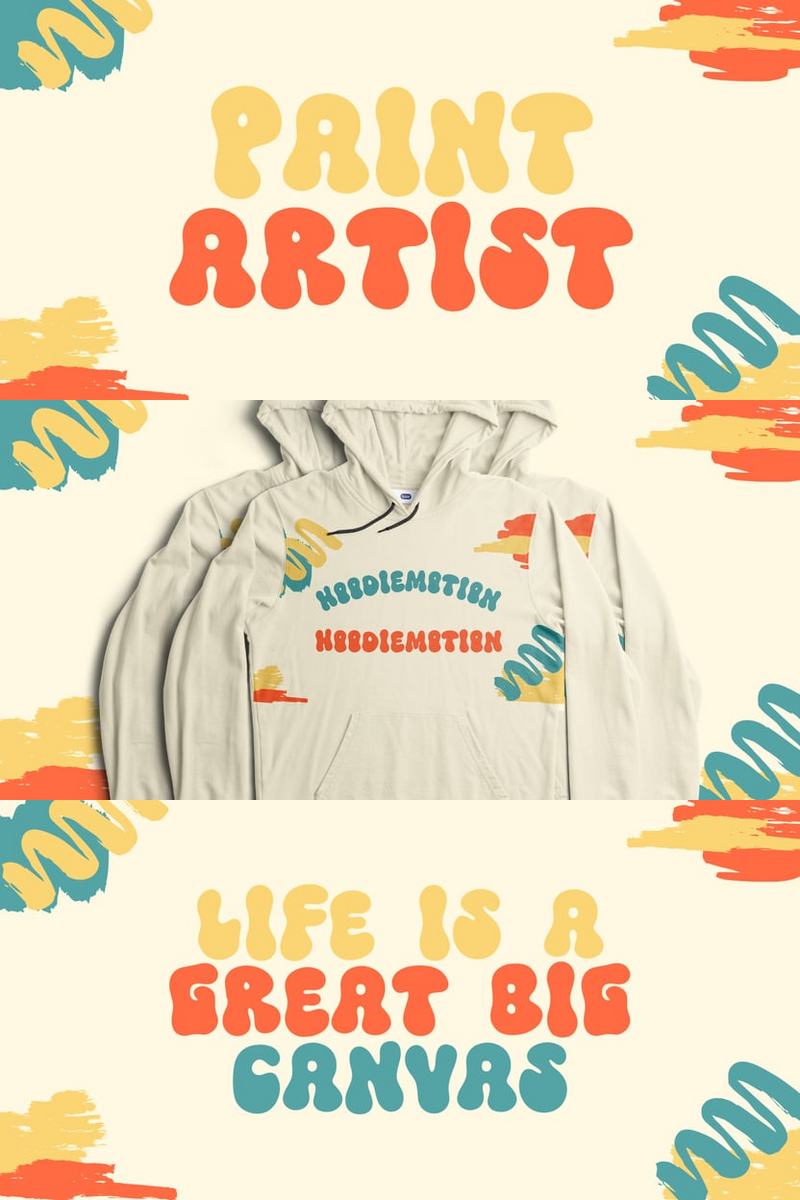
How to Give Your Tech Startup's Logo That 'Wow' Factor: Retro Glow's Bold Expressiveness Demystified.
Hey there, fellow innovators! You’ve poured your heart and soul into building a groundbreaking tech product. You’ve got the vision, the code, the brilliant minds – but how do you make sure your brand identity screams "future leader" without losing that essential human, approachable touch? In a sea of sleek but often similar-looking startups, standing out isn't just a nice-to-have; it's everything.
Imagine a font that grabs attention like a neon sign from a retro-futuristic cityscape, but feels as fresh and relevant as tomorrow's algorithm. That's Retro Glow. It's a bold, confident typeface with a playful edge, blending vintage warmth with cutting-edge crispness. Think of it as your brand's charismatic voice, ready to make an unforgettable first impression. It doesn't just display words; it projects personality, making your message instantly more engaging.
We know you're not just building a product; you're building a movement, a community. And your brand needs to reflect that energy, that drive. Retro Glow understands the startup hustle. It's designed for the tech company that's ready to make a bold statement, the one that wants their name to resonate not just with innovation, but with genuine charisma and approachability. Forget blending in; this font is about owning your space and inviting others into your unique world with a confident, friendly swagger.
With Retro Glow, you're not just choosing a typeface; you're injecting an unmistakable visual energy into your brand. It’s about building a brand identity that’s instantly recognizable and deeply memorable. Think about that feeling of "Oh, that's them!" – Retro Glow makes that happen. It empowers you to convey complex ideas with straightforward, impactful clarity and a confident, approachable vibe. No more bland corporate speak; this is about bold expressiveness that resonates emotionally and visually cuts through the noise.
Retro Glow: Bold Future. Instant Classic.
Ready to see how Retro Glow can elevate your brand's presence? Here’s a sneak peek at where this powerhouse font truly shines:
- Logo Design: Picture your startup's name – whether it's "Synapse AI," "Pixel Pulse," or "Quantum Leap Solutions" – rendered in Retro Glow. The robust strokes and confident presence make it impossible to ignore, giving your logo immediate gravitas and a friendly, forward-thinking feel. It instantly communicates innovation with an accessible personality, making your brand logo stick in people's minds.
- Website Headers: Command attention the moment someone lands on your page. Retro Glow guides their eye with a strong, inviting presence, ensuring your key messages are front and center.
- Marketing Materials: From social media graphics to pitch decks, ensure your core propositions are delivered with punch and personality, helping your startup cut through the digital noise.
- Product UI (for specific callouts): Use Retro Glow to highlight crucial features or calls to action within your application, adding a distinct, branded touch that feels both exciting and intuitive.